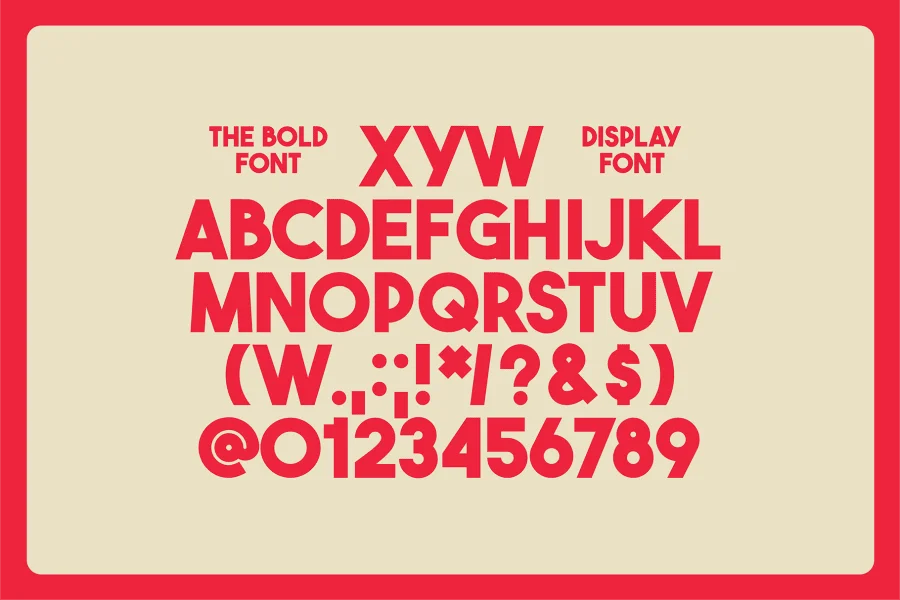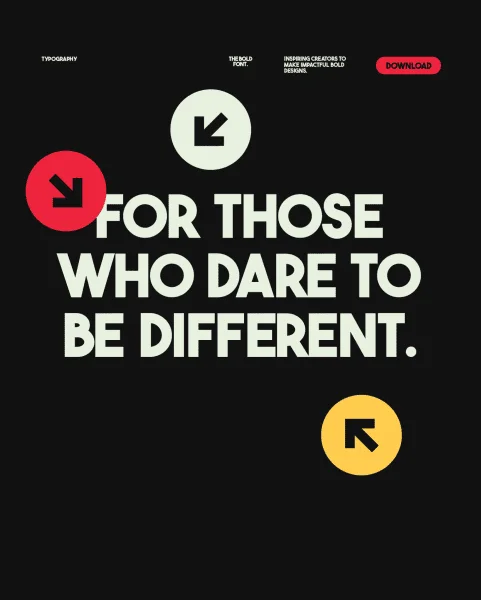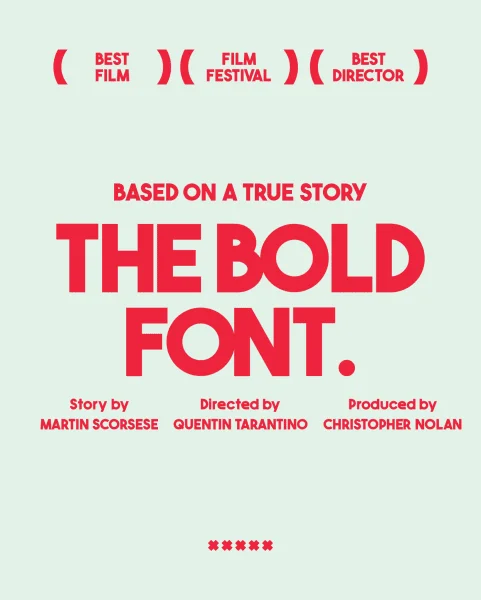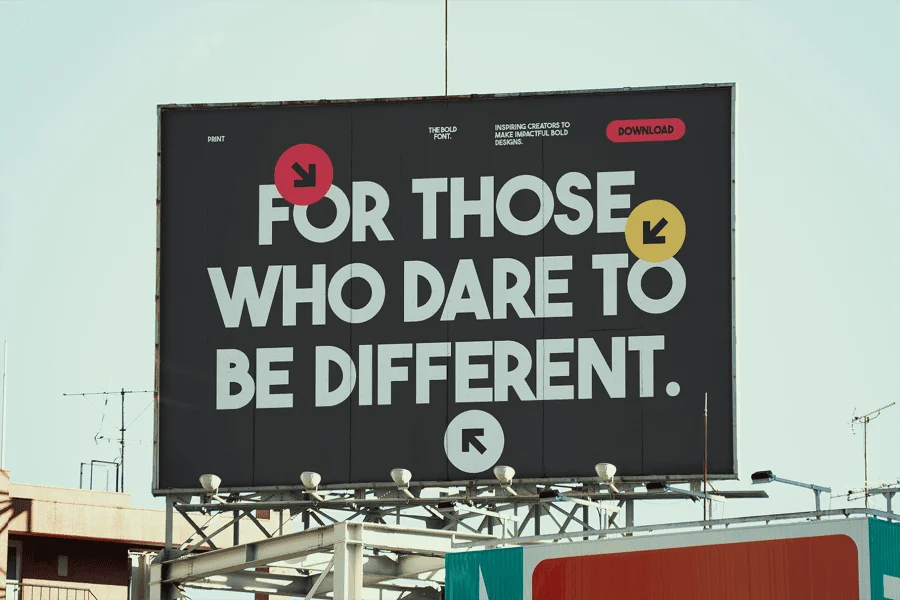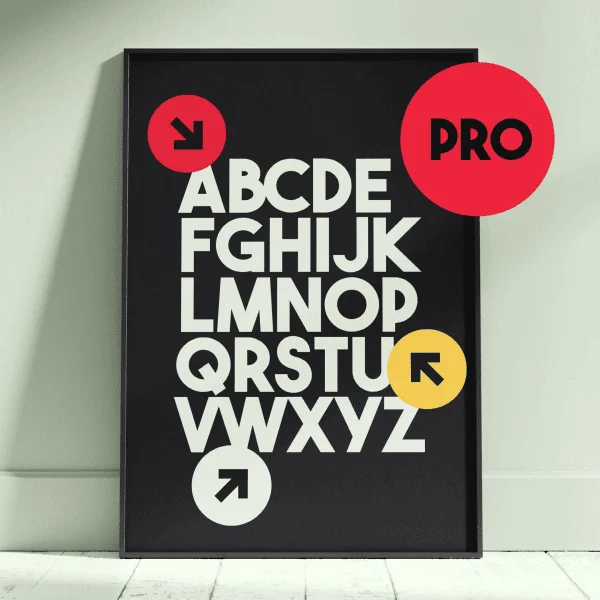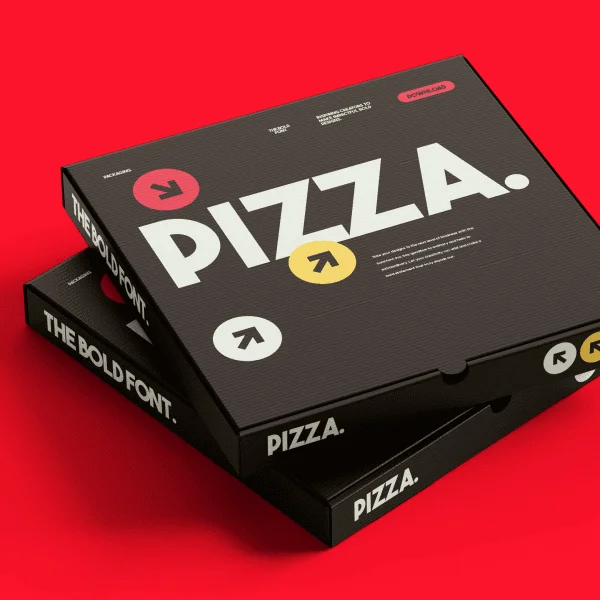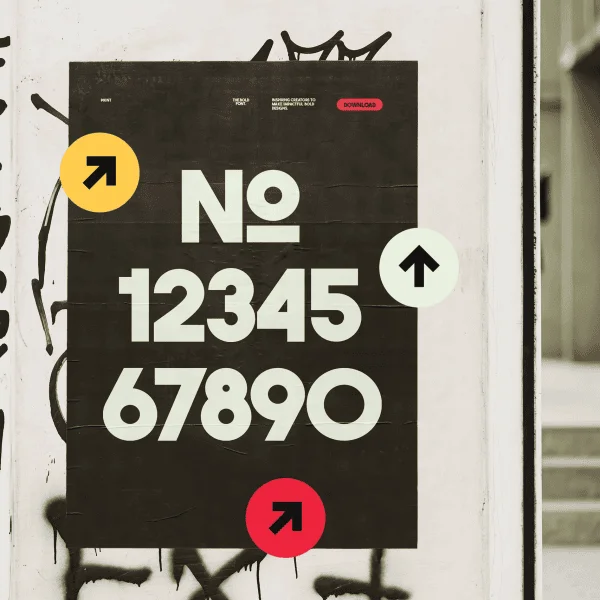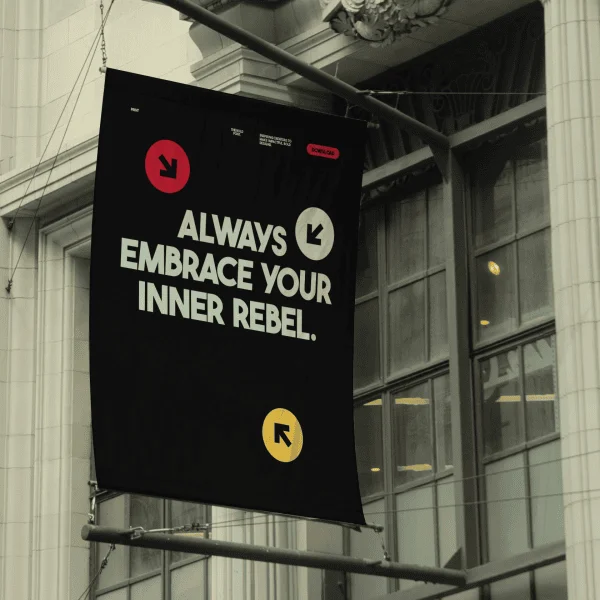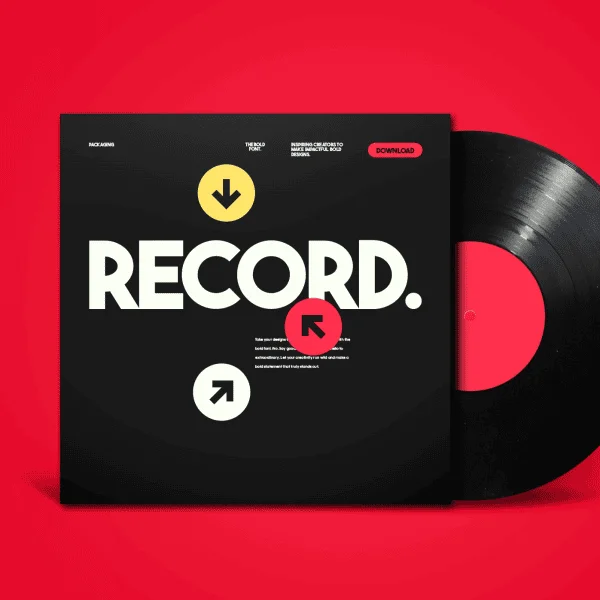
You have to try THE BOLD FONT! It’s this super cool, no-nonsense typeface that screams confidence. The clean lines and bold vibes make it perfect for unique logo design, eye-catching headlines, or anything that needs to stand out.